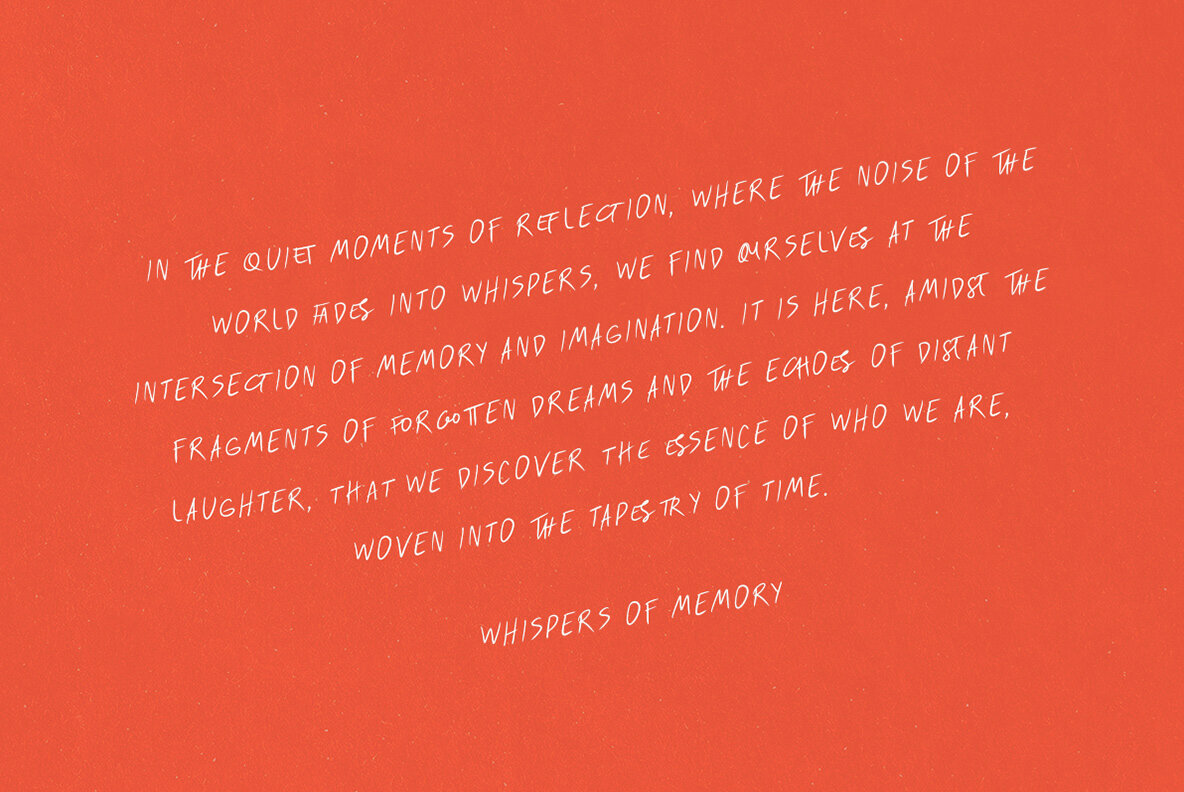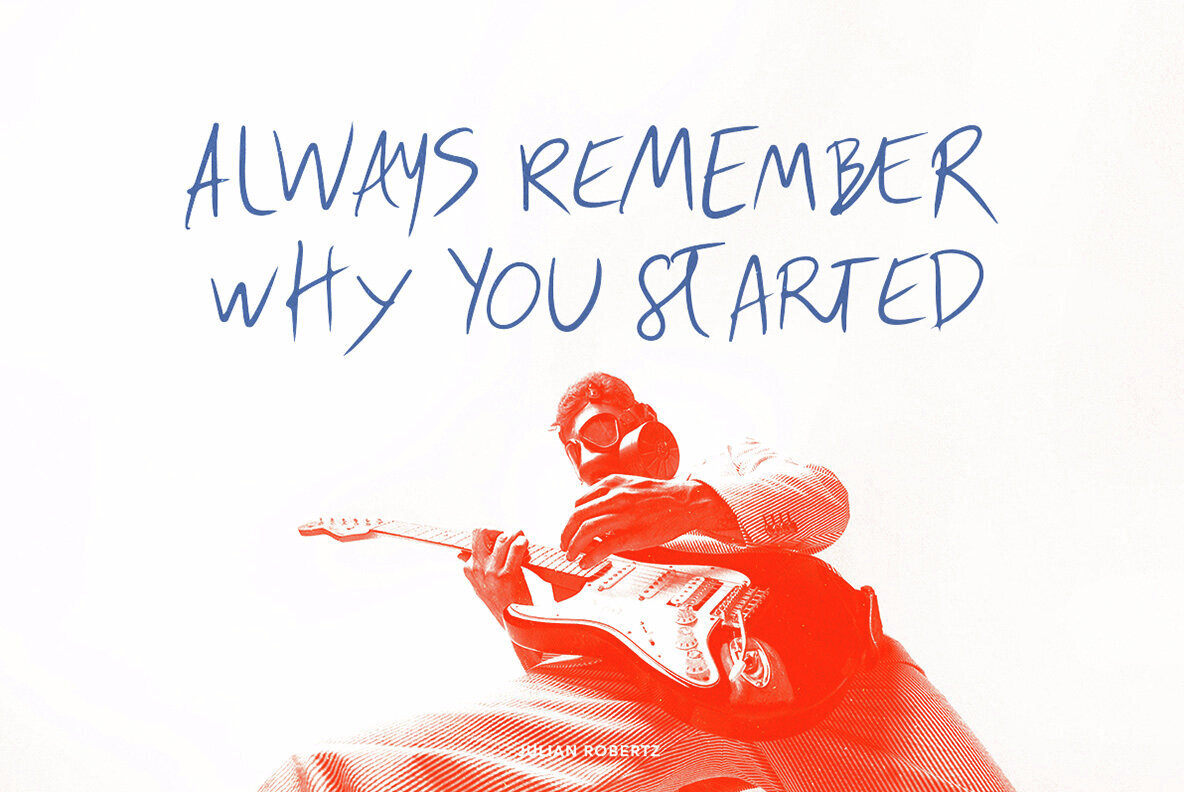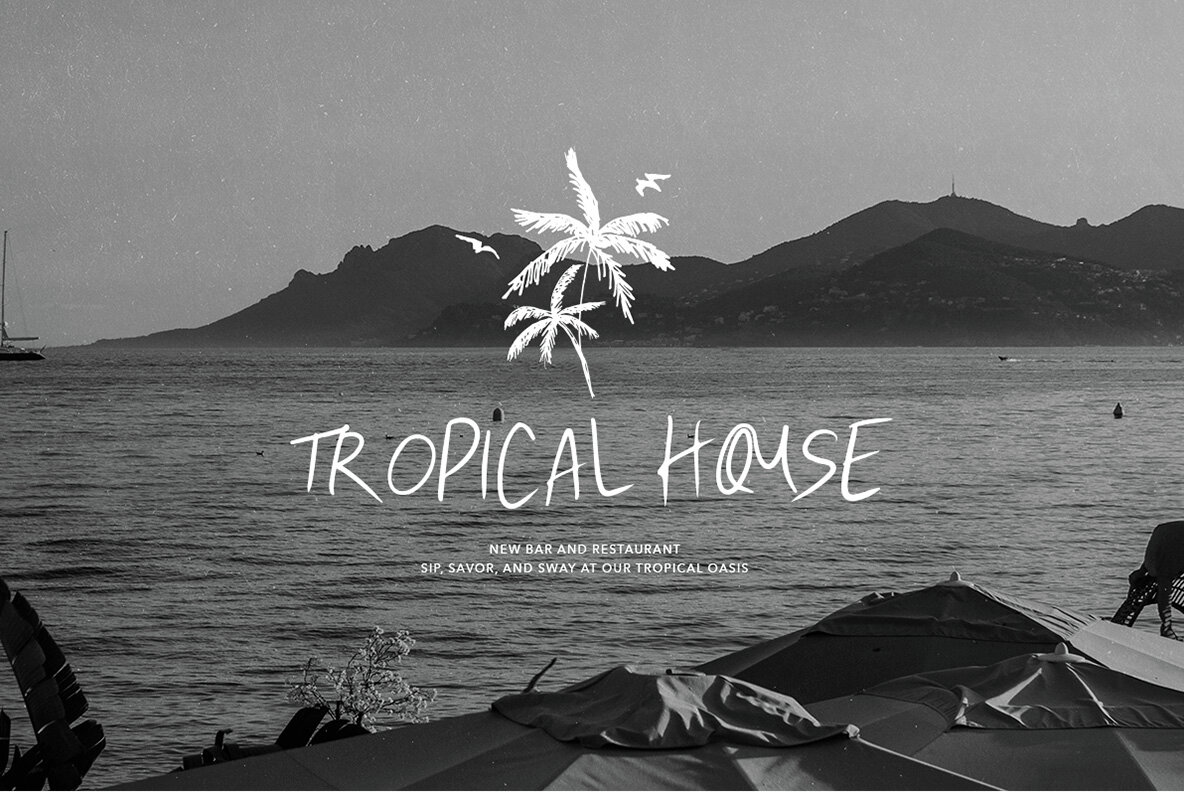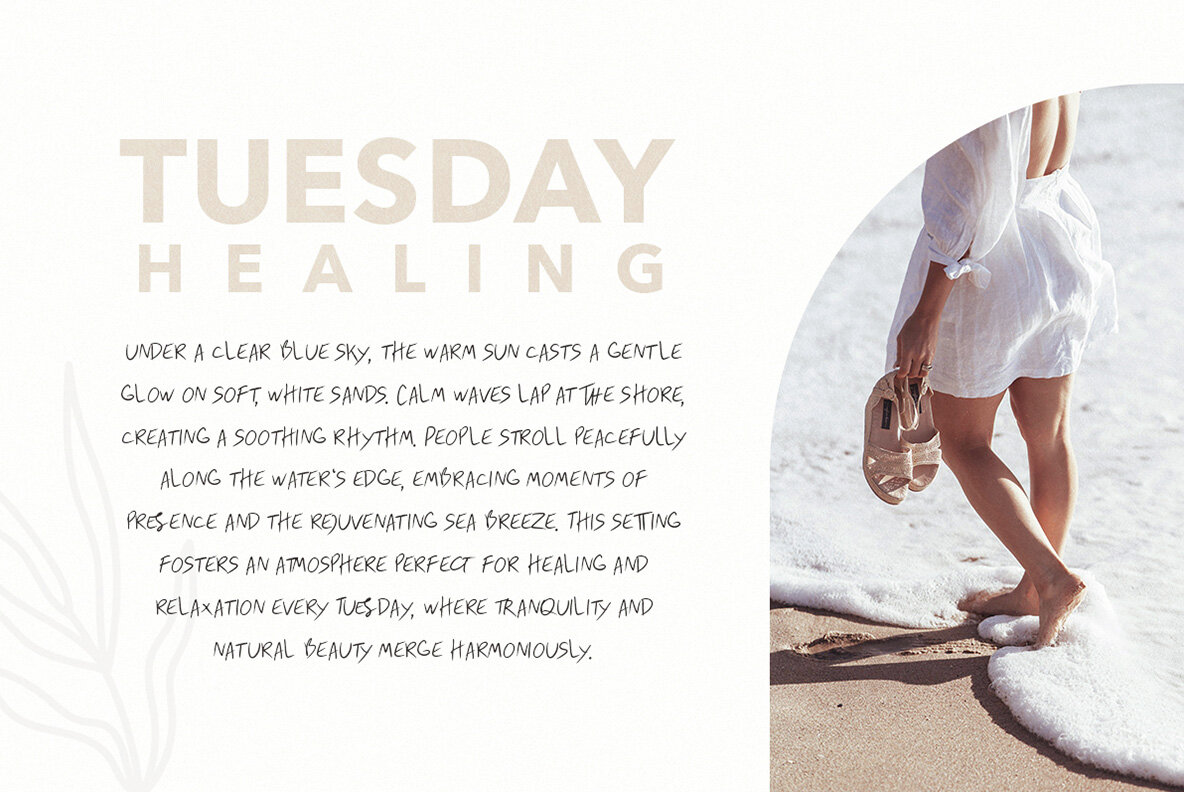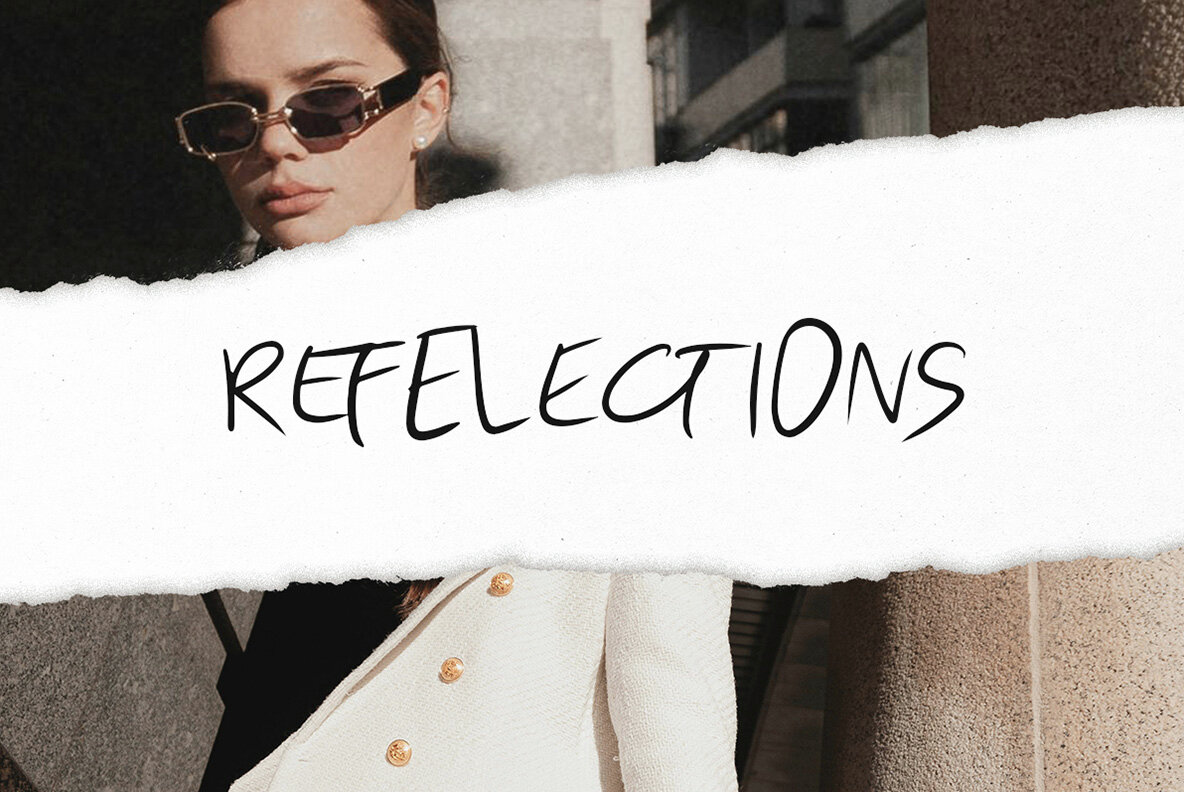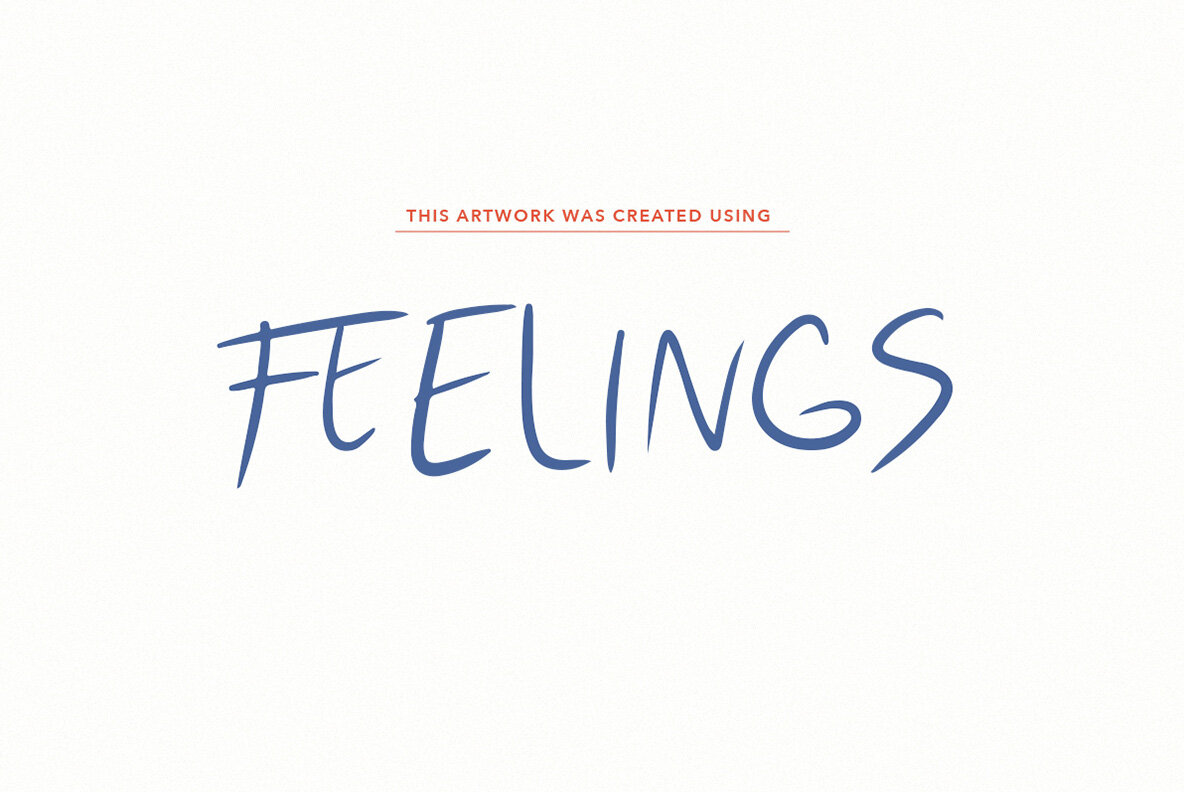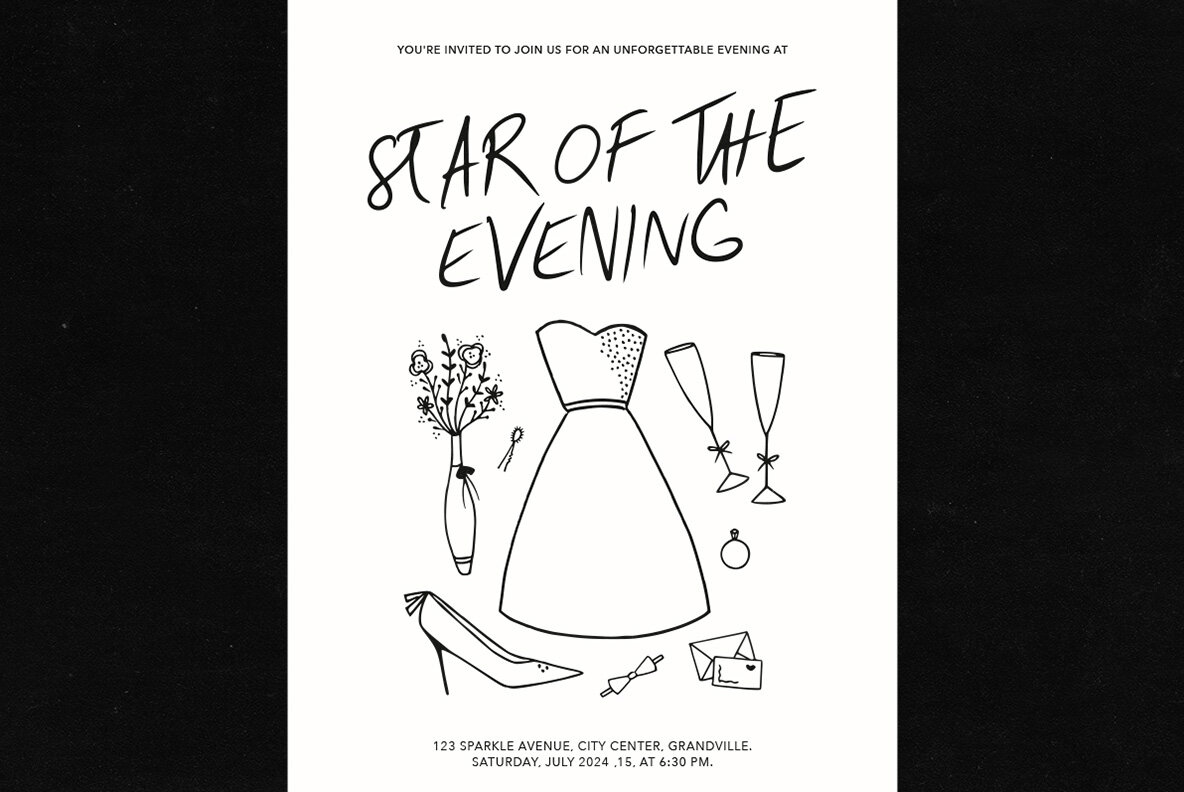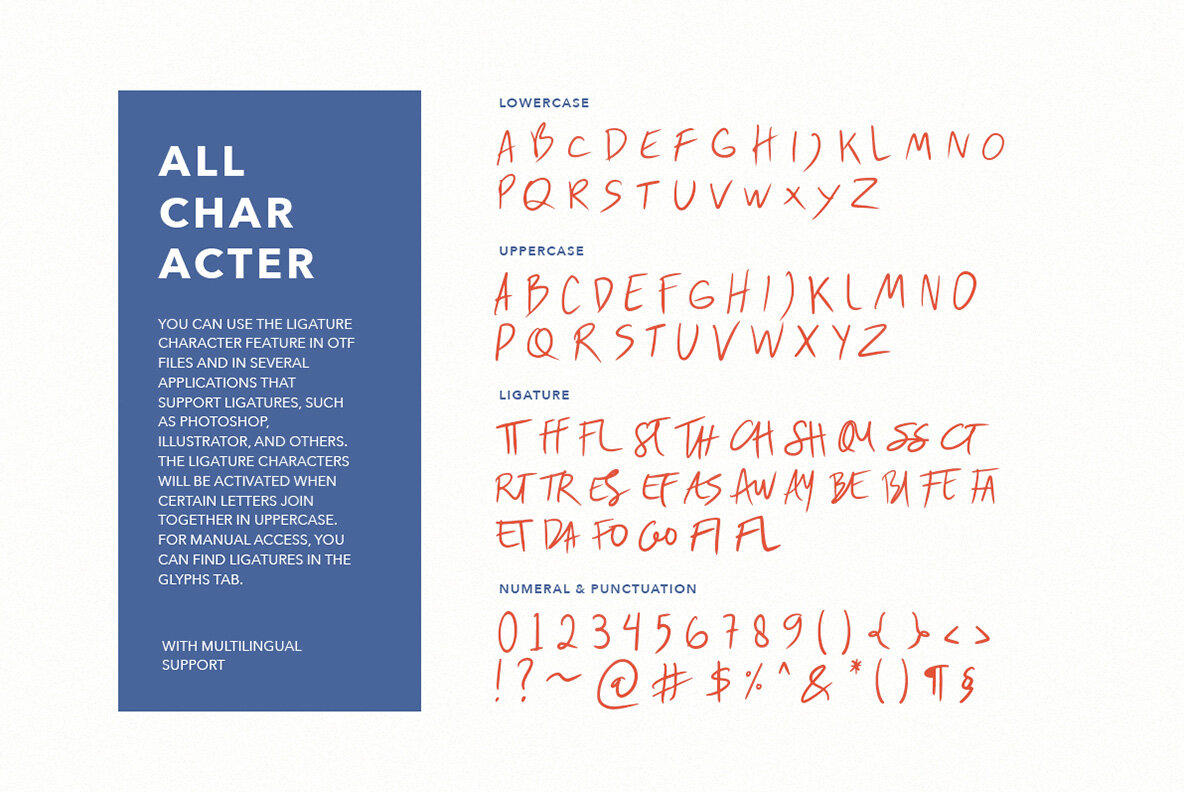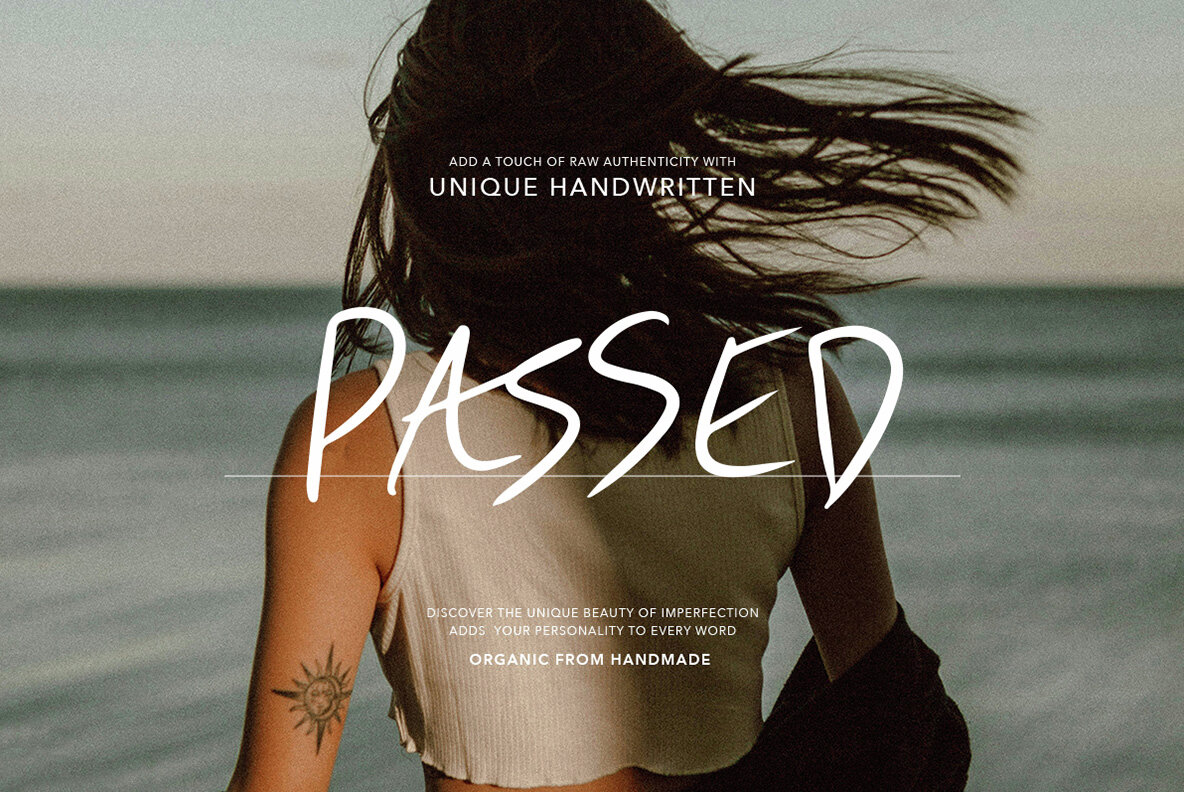
Passed Font
Passed Regular
Passed is a handwritten font that showcases organic artistry in every line and curve. With a messy yet unique style, Passed adds a natural touch to any design. Suitable for a wide range of creative needs, from branding and packaging to social media, this font brings a strong and authentic character to your work.